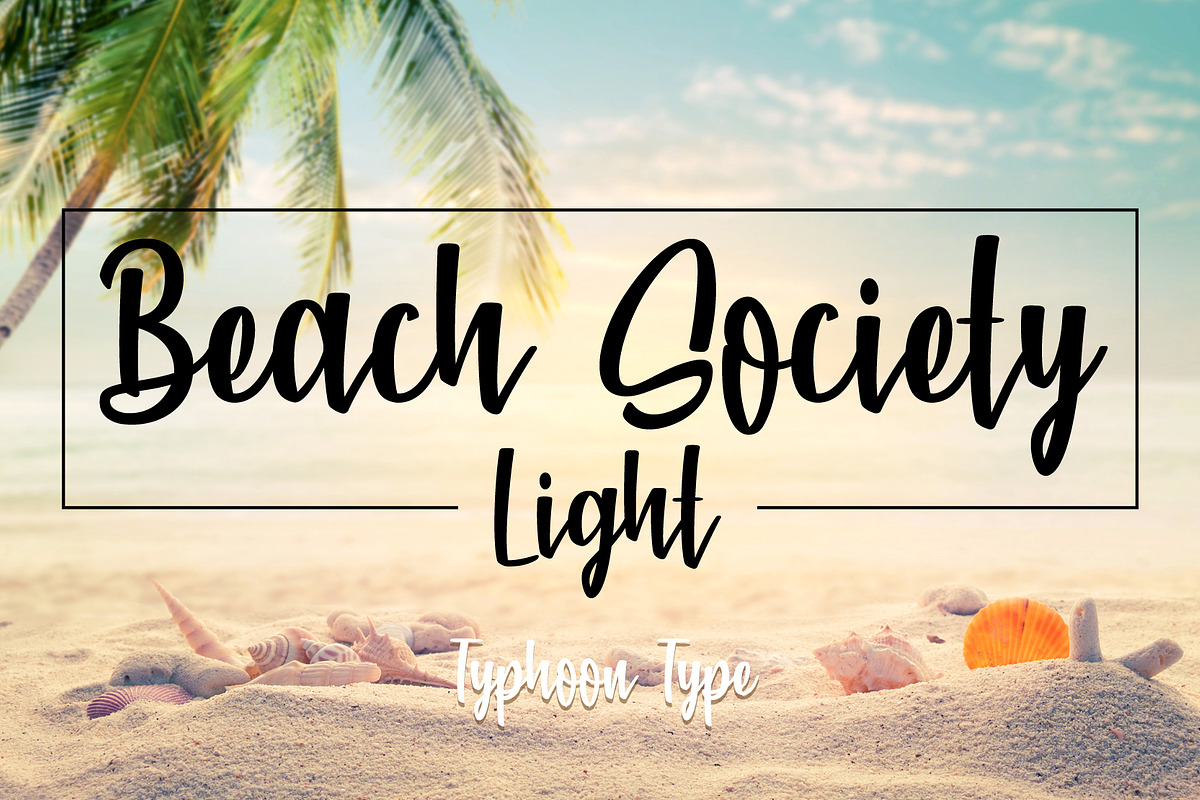
Beach Society Light font
Beach Society Light This font perfect for logos, name tag, advertising, product packaging, clothing, social media & greeting cards.
Beach Society Light font by TyphoonStudio fits naturally into Branding, posters, packaging, typography.